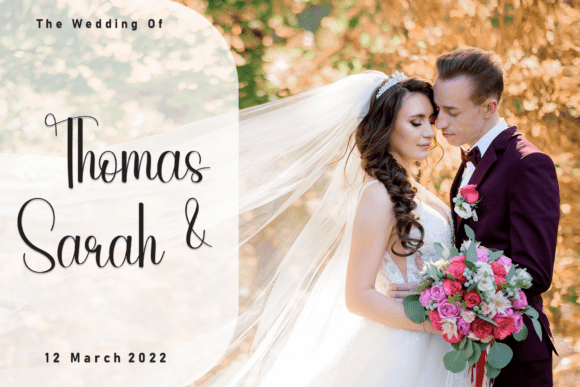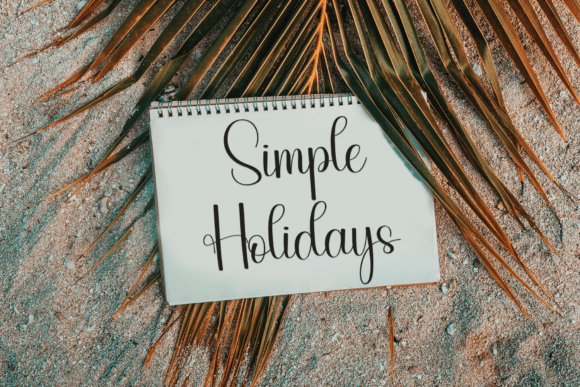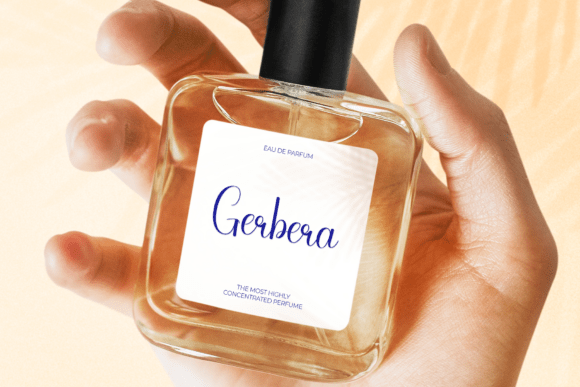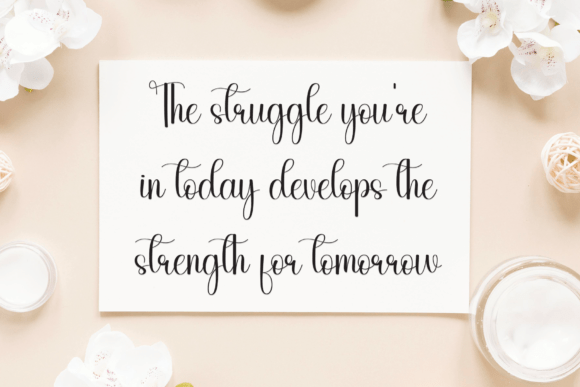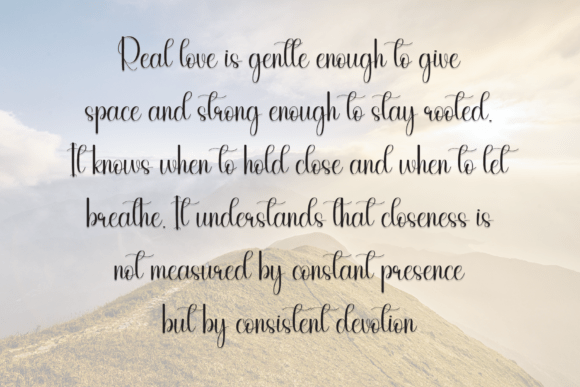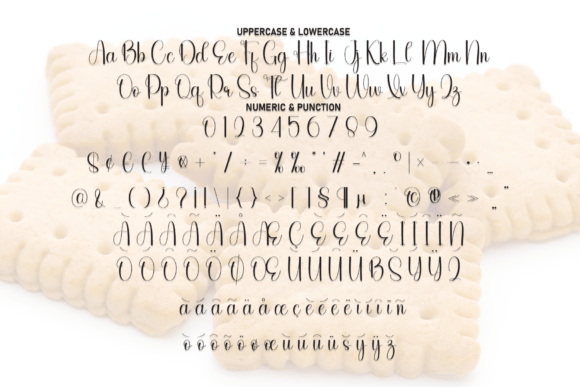
Baking Up a Design Masterpiece with the Biscuit Font
Have you ever been in the midst of brainstorming a creative project, and suddenly, a burst of inspiration hits you? Maybe it’s the perfect wedding invitation design, a heartfelt birthday card, or a charming social media post. Whatever it may be, you know exactly what you’re looking for – a dash of whimsy, a pinch of personality, and a whole lot of love. That’s where the delightful Biscuit Font comes in – a handcrafted script font that’s as warm as a freshly baked cookie.
This enchanting typeface is specifically designed to bring a joyful touch to your creative endeavors. Its welcoming and cheerful energy makes it the perfect companion for any artistic design craving a loving and jovially appealing allure. Whether you’re a seasoned designer or a hobbyist, the Biscuit Font is sure to amplify your creations and mesmerize your admirers.
Biscuit Font Key Features
- Font Family: Biscuit is a unique, hand-drawn font designed to evoke a sense of warmth and comfort.
- Character Set: The font includes a wide range of characters, including uppercase and lowercase letters, numbers, punctuation, and special characters.
- Resolution: The font is designed to be resolution-independent, ensuring it looks great at any resolution, from low-resolution screens to high-resolution prints.
- Unique Characteristics: Biscuit Font features a distinctive, hand-drawn style with subtle imperfections, giving it a warm and inviting feel.
Biscuit Font Review
I recently had the chance to work with the Biscuit font, and I wanted to share my honest thoughts on it.
The Biscuit font has a unique, playful charm that can add a lot of character to a design. Its rounded edges and soft curves make it perfect for creating a friendly, approachable atmosphere. I particularly love how it pairs well with bold, geometric fonts to create a nice contrast.
- Unique and playful character
- Rounded edges and soft curves
- Pairs well with bold, geometric fonts
While the Biscuit font is great for adding a touch of personality to a design, it can be quite difficult to read in smaller sizes. The font’s rounded edges and soft curves can also make it hard to distinguish between certain letters, especially when used in large blocks of text.
- Difficult to read in smaller sizes
- Can be hard to distinguish between certain letters
The Biscuit font is a great addition to any designer’s toolkit, but it’s best used in moderation. When used sparingly, it can add a lot of charm and personality to a design. However, when used too heavily, it can be overwhelming and difficult to read.
The Biscuit Font is a versatile font that can be used for a variety of purposes, including:
- Creating playful and whimsical designs
- Adding a touch of nostalgia to your designs
- Using in logos and branding materials
Remember to use the Biscuit Font in moderation, as it can be overwhelming if used too extensively.